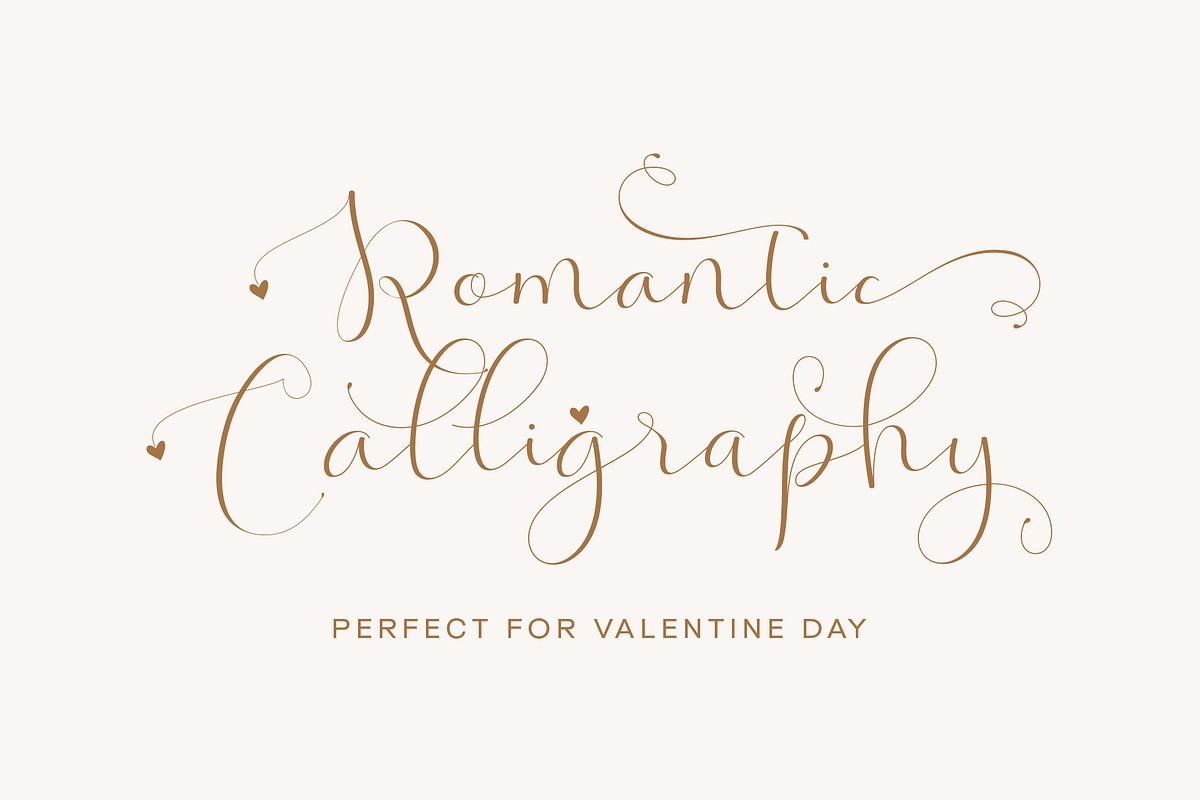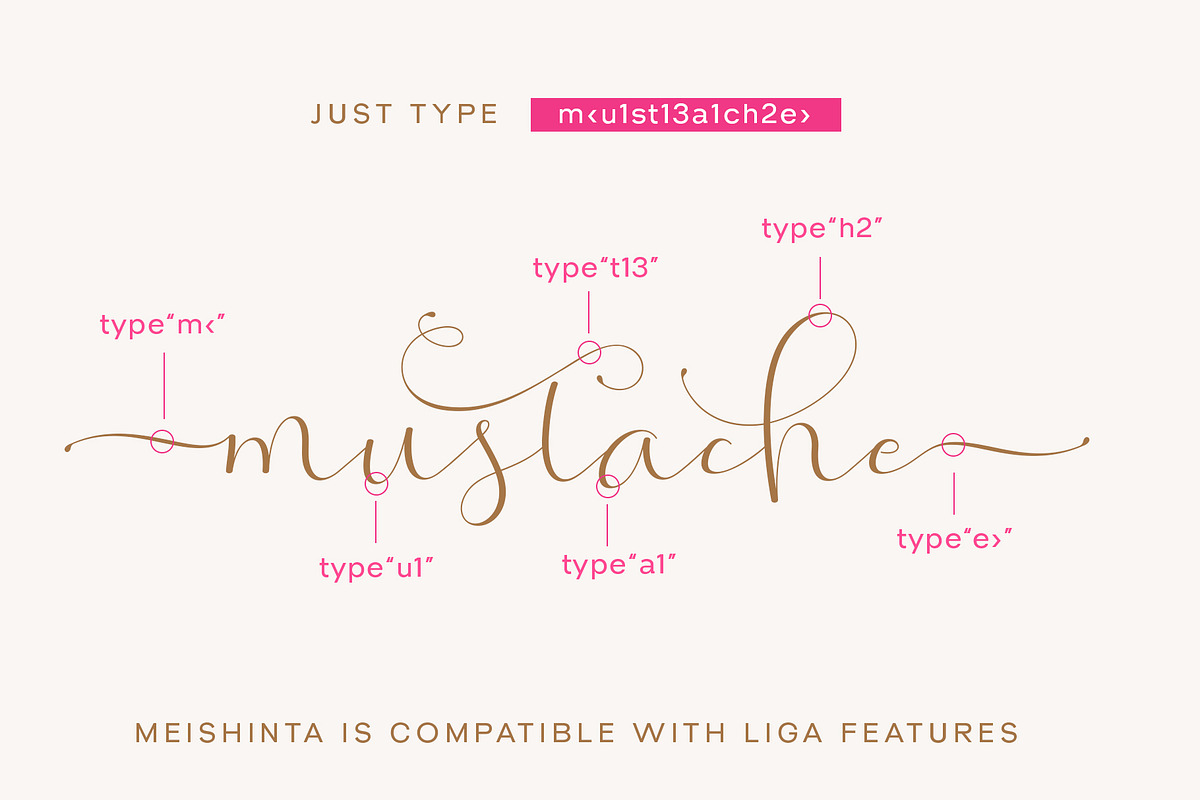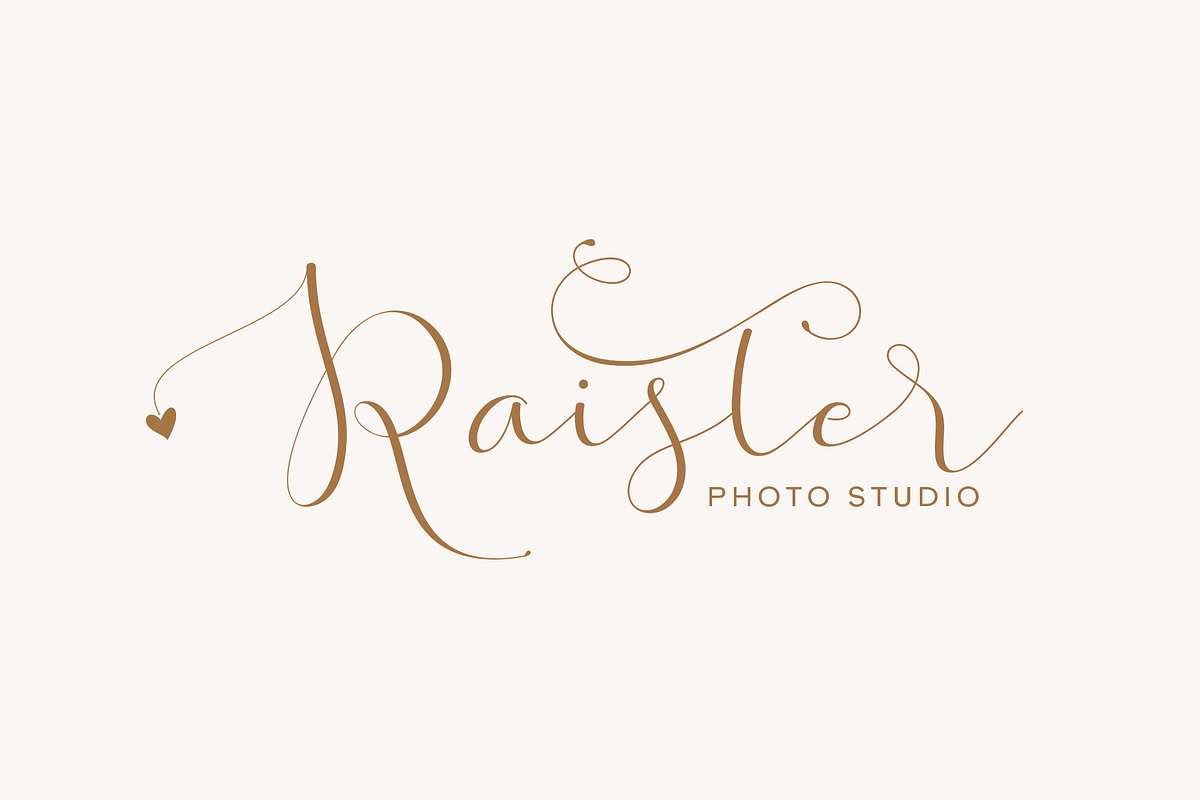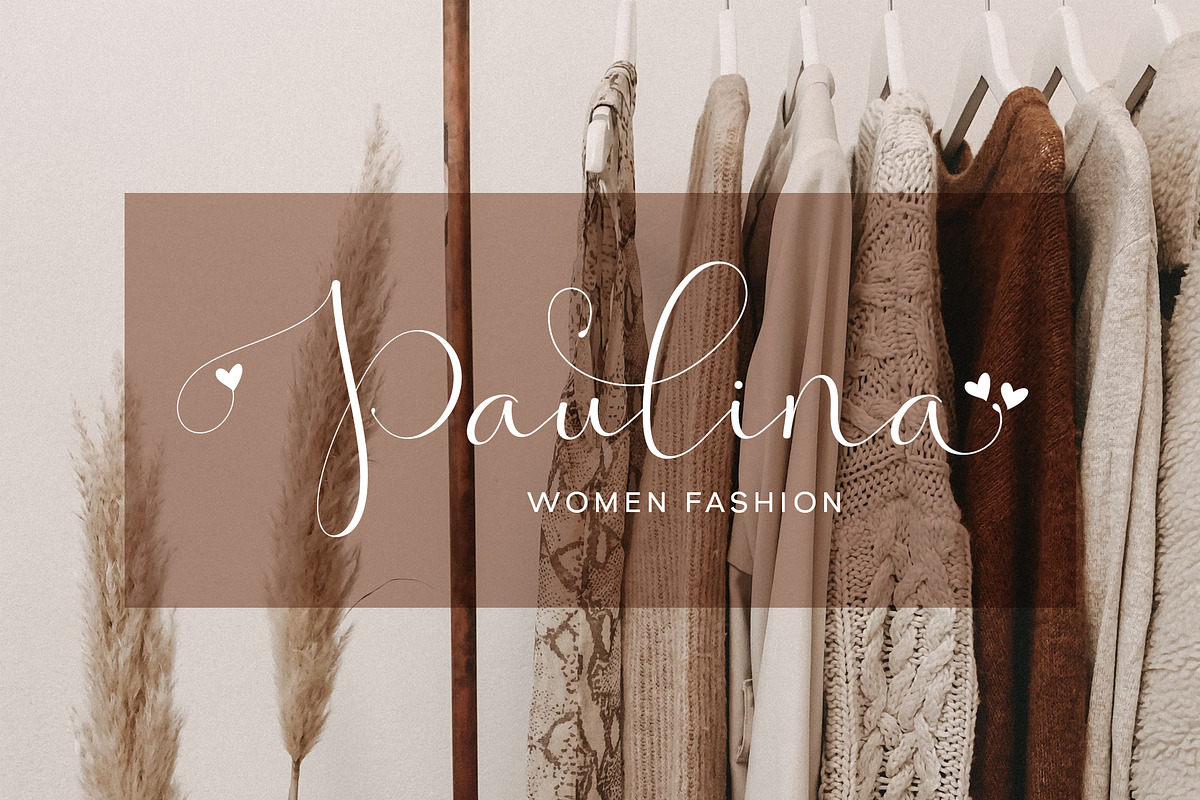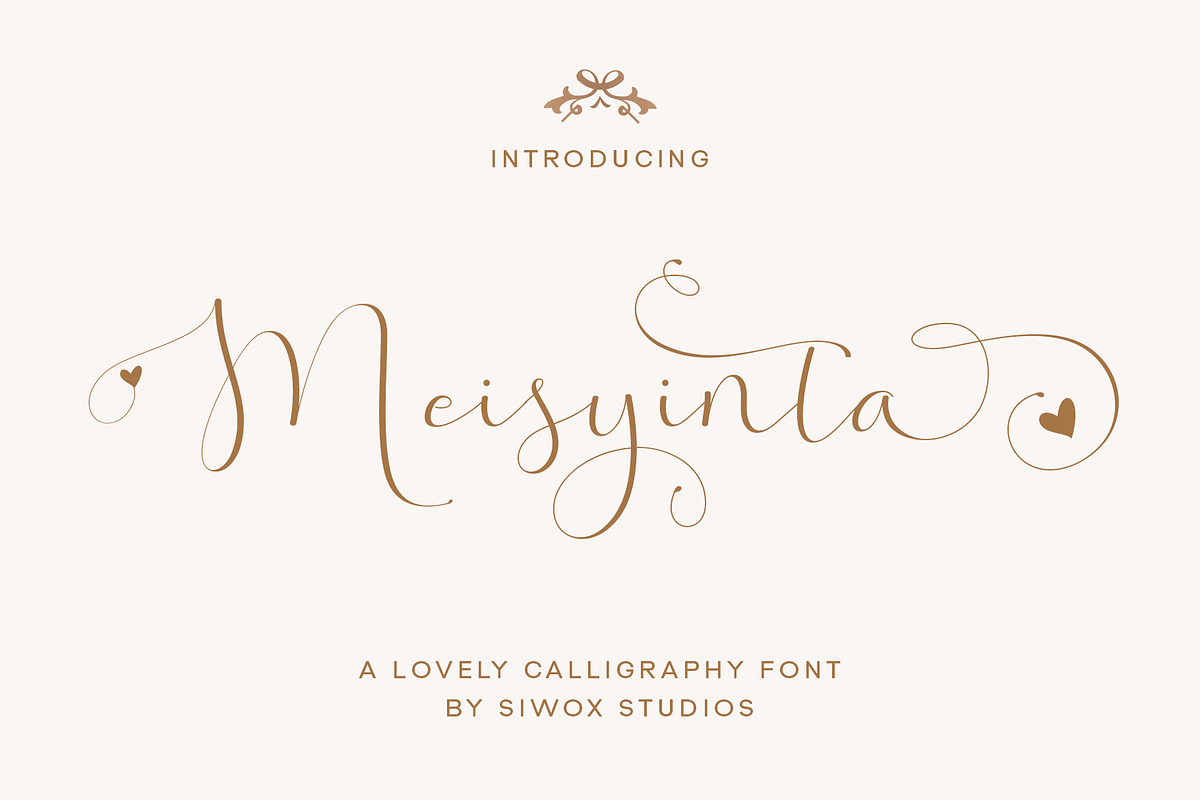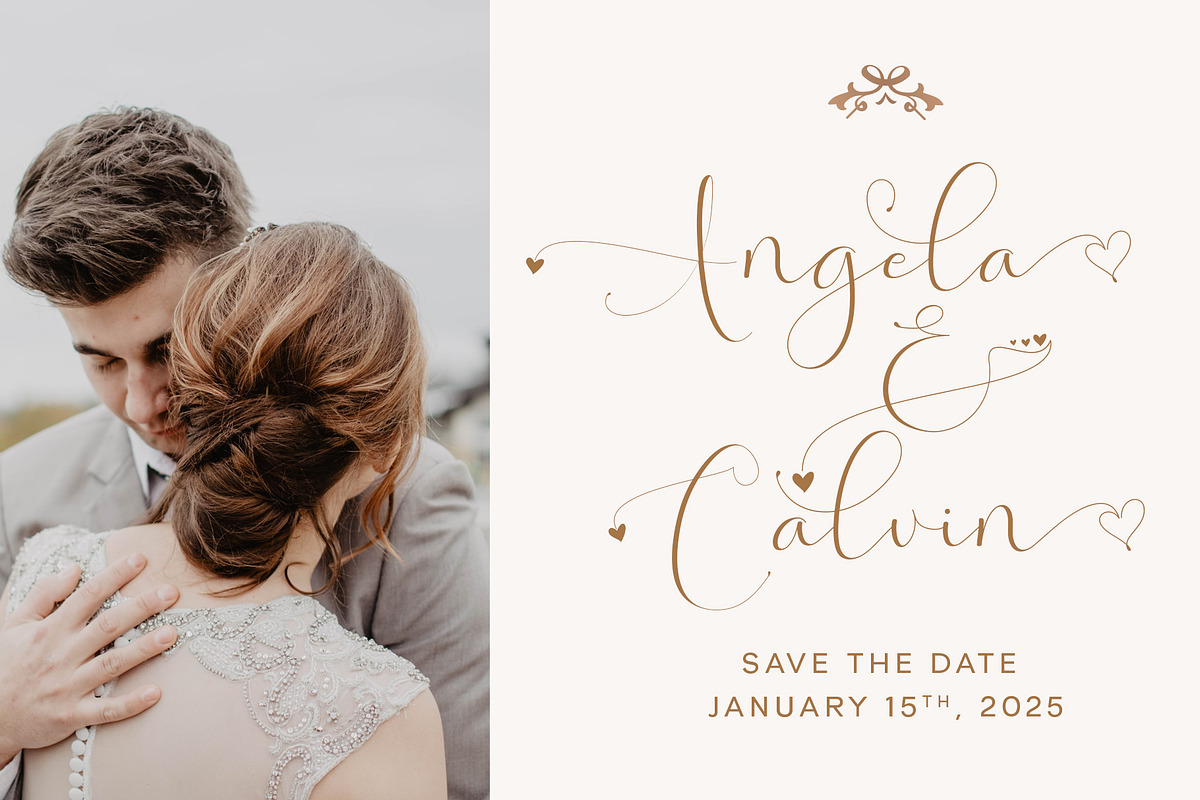
Meisyinta - A Romantic Font
Meisyinta is a romantic and thin lettered calligraphy typeface with characters that dance along the baseline. It will add a luxury spark to any design project that you wish to create! This font is PUA encoded which means you can access all of the amazing glyphs and ligatures with ease!